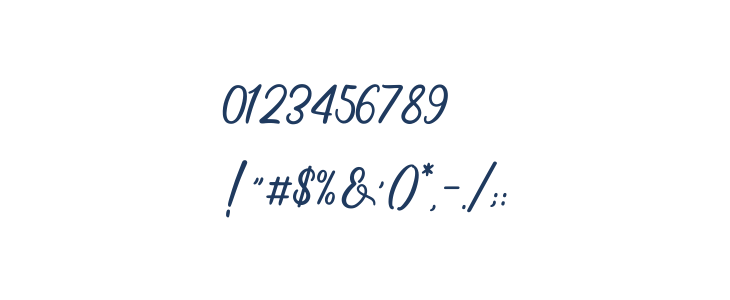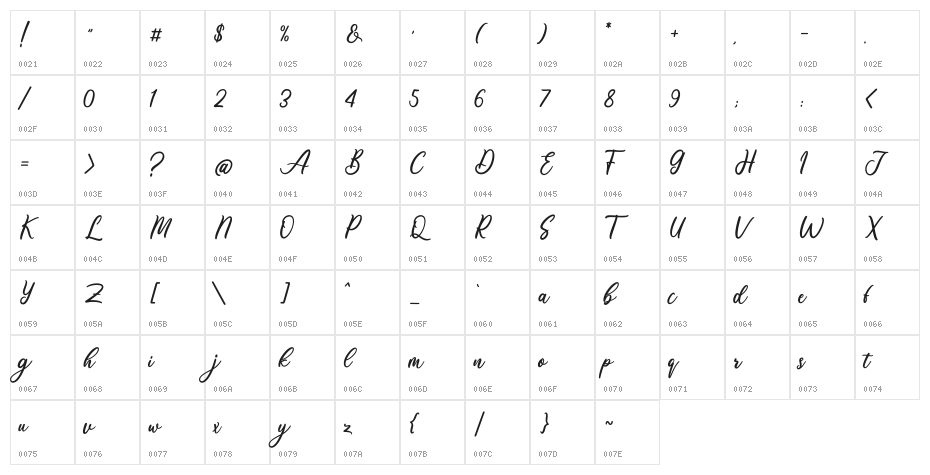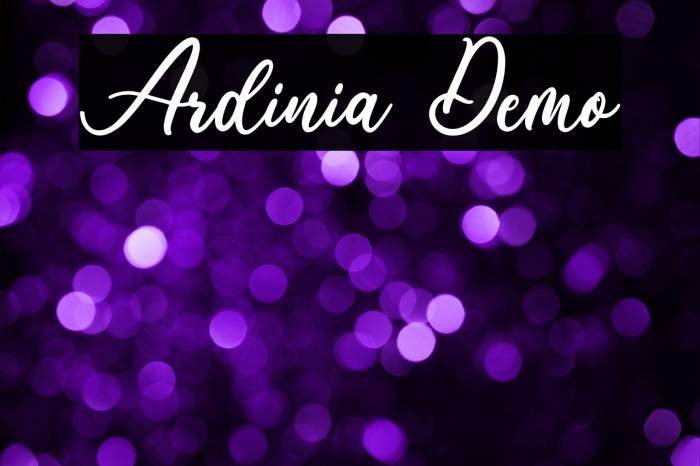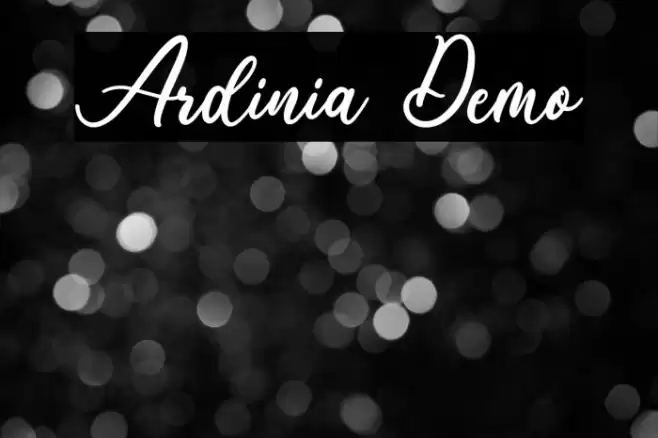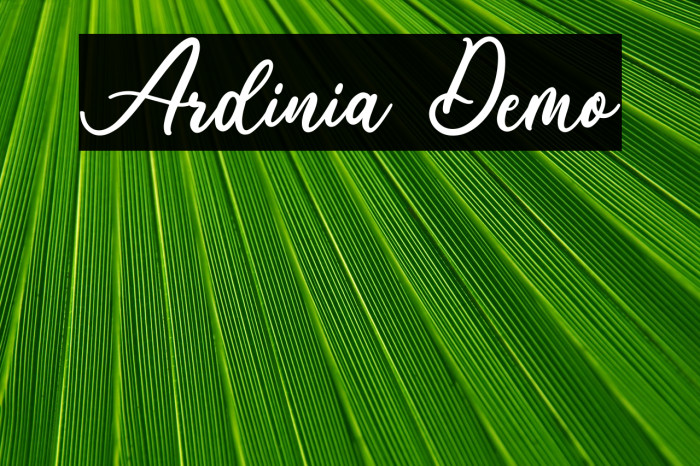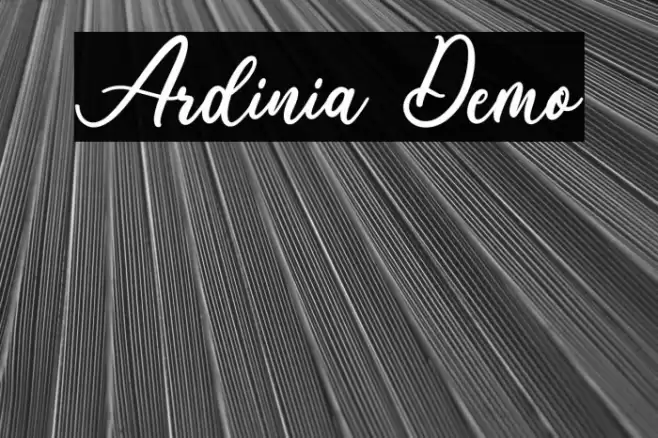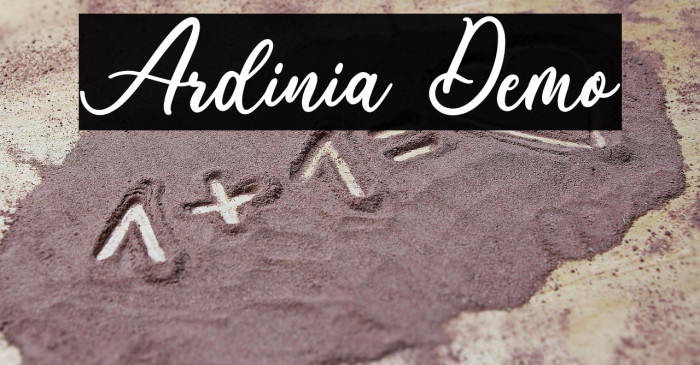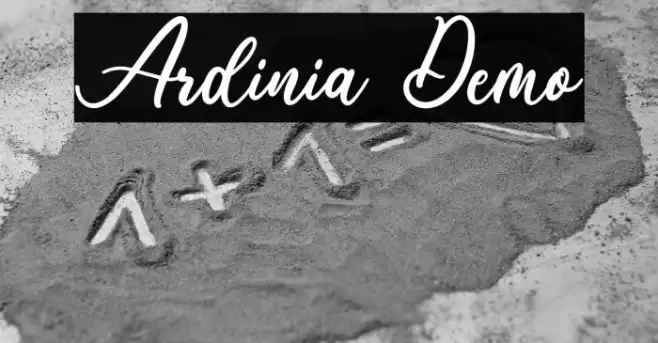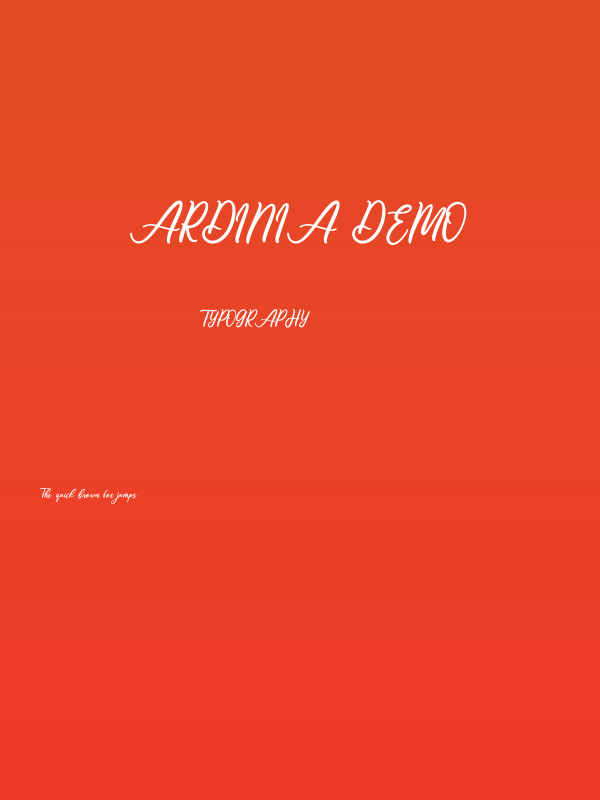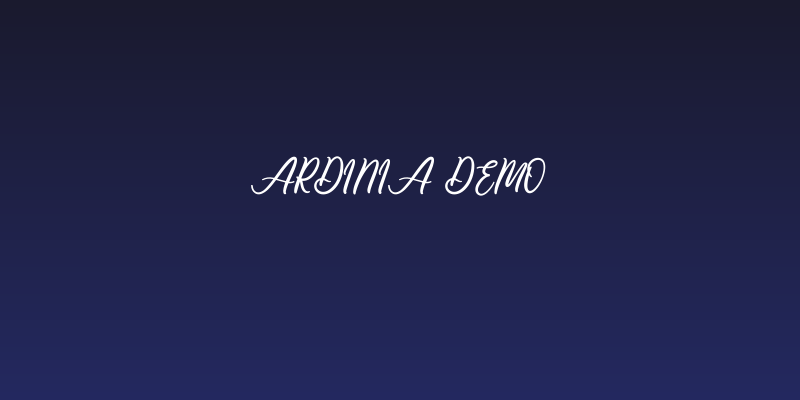
Ardinia Demo Font
Ardinia Demo Description
This font features a flowing, cursive style that exudes elegance and sophistication. The letters are interconnected with smooth, sweeping strokes that give it a handwritten appearance. The uppercase letters are bold and prominent, while the lowercase letters maintain a consistent flow, enhancing readability. The numerals and special characters are designed to match the overall aesthetic, ensuring a cohesive look. This script font is perfect for adding a personal touch to any design, making it ideal for invitations, branding, and creative projects.
| Proposed Projects | Ideal for wedding invitations, personal branding, greeting cards, and artistic projects. |